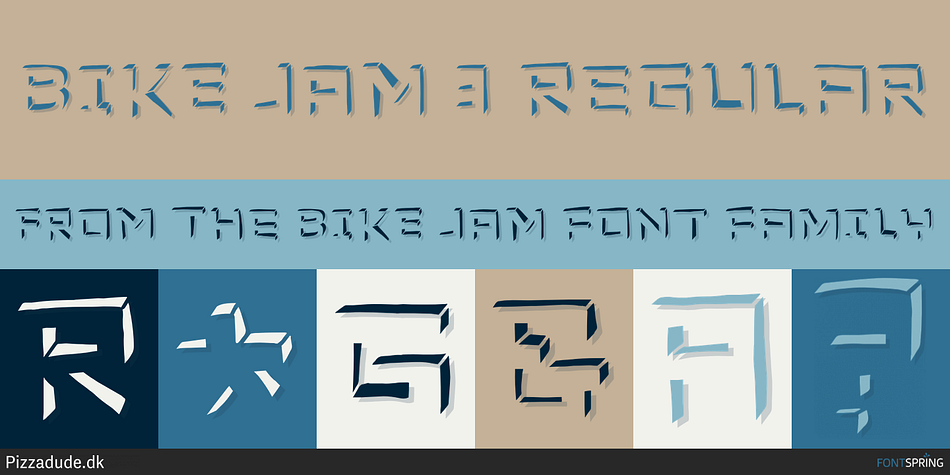
BIKE JAM 3 REGULAR
Designed by Jakob Fischer, Bike Jam is a hand display font family. This typeface has six styles and was published by Pizzadude.dk.
I love my bike, and I couldn’t dream of not using it on a daily basis - I use my bike in rain, sun, snow, and windy days…all year, in other words!
This font is dedicated to my bike, and is the second in a series of handmade fonts!
Play around with the 6 layers and your favourite colours, for awesome effects. All versions comes with Contextual Alternates, which means several versions of each letter. In this case, every letter has 7 different versions that automatically cycles as you type! A quite awesome thing, because it makes your text more lively and natural looking!